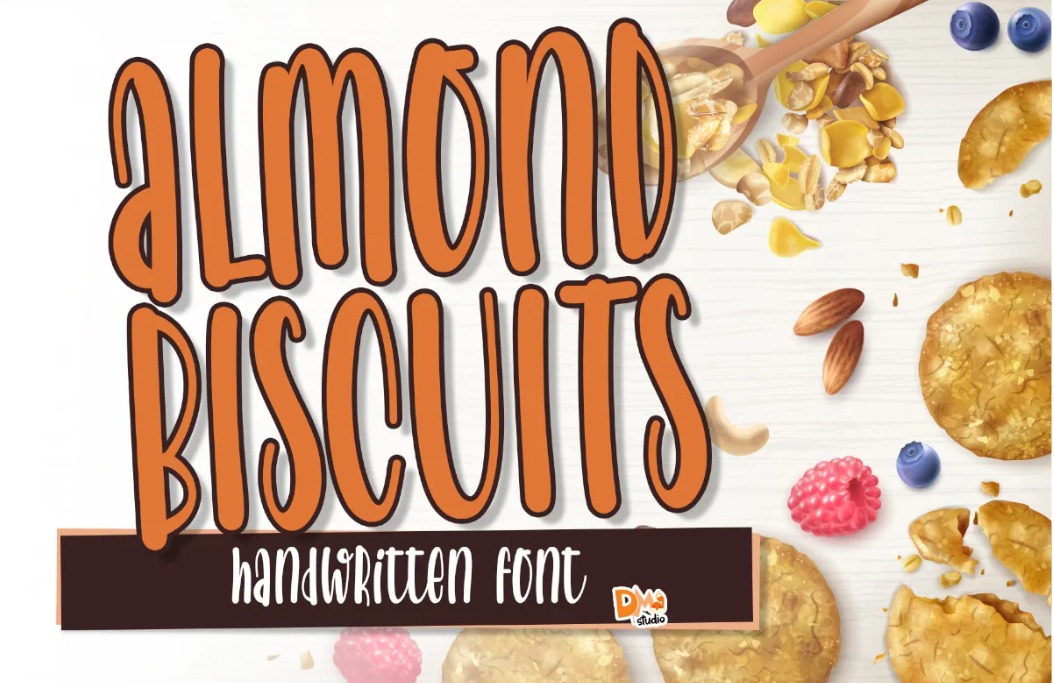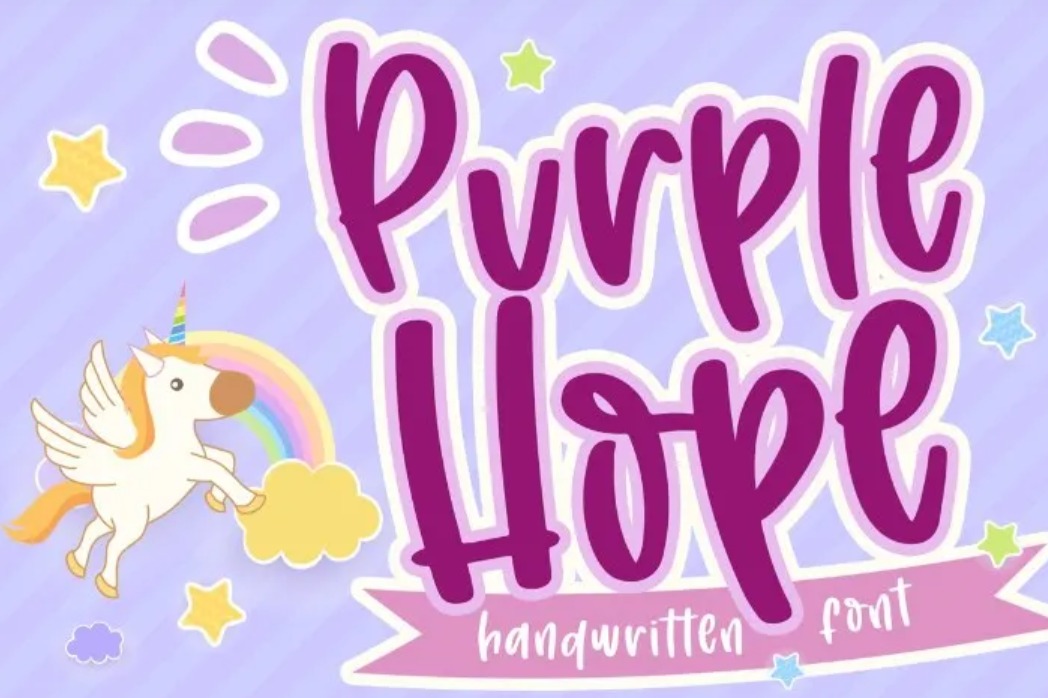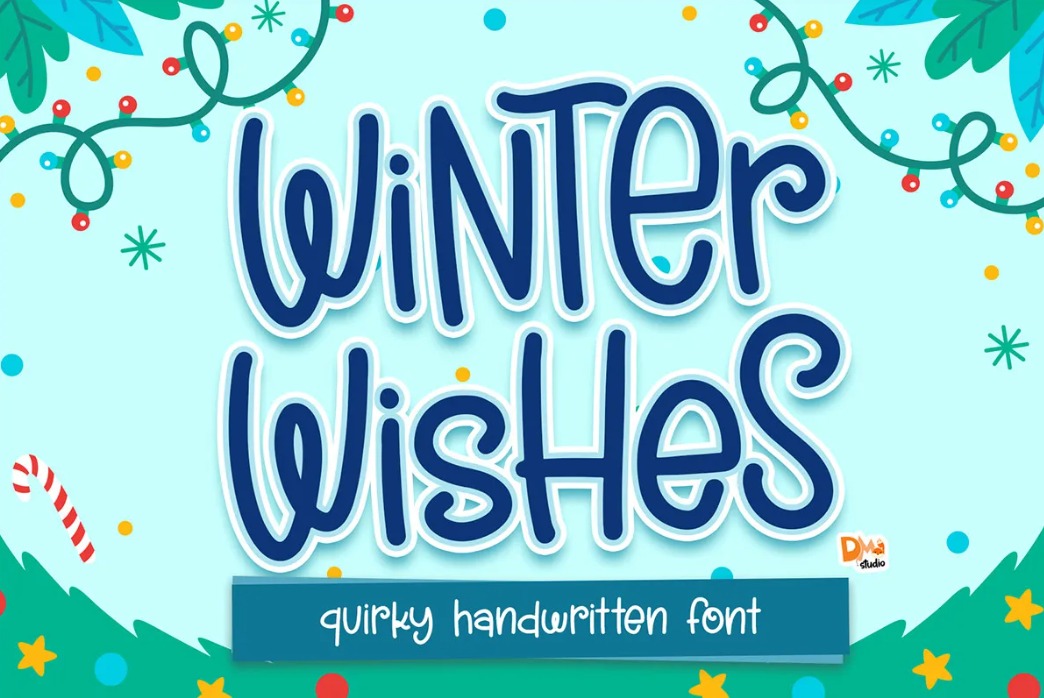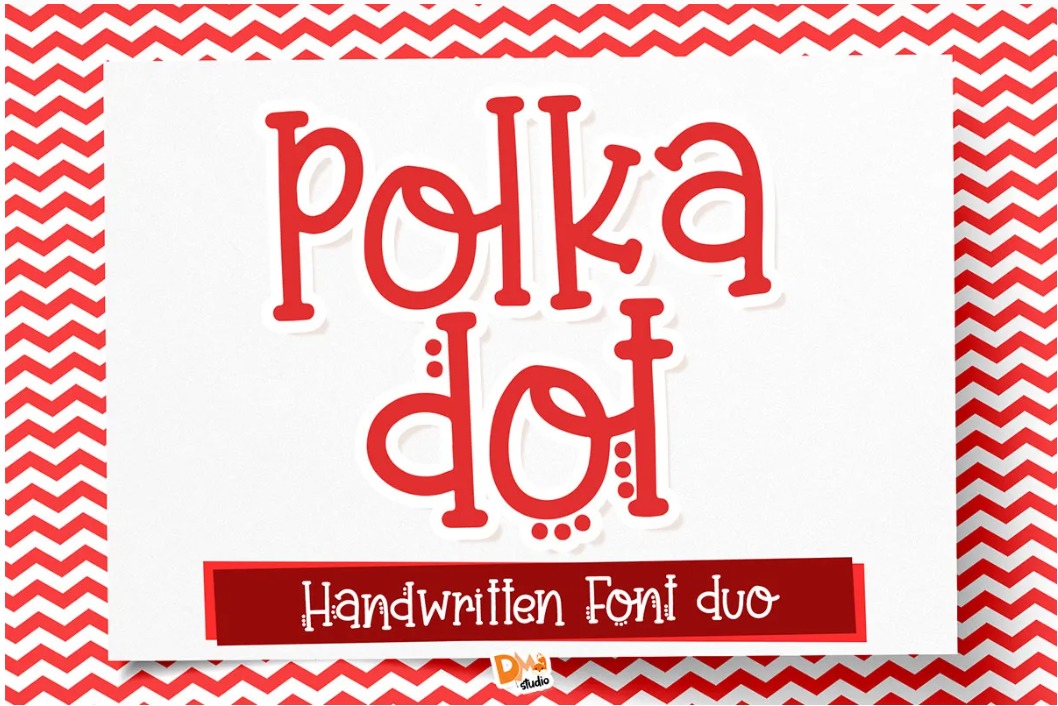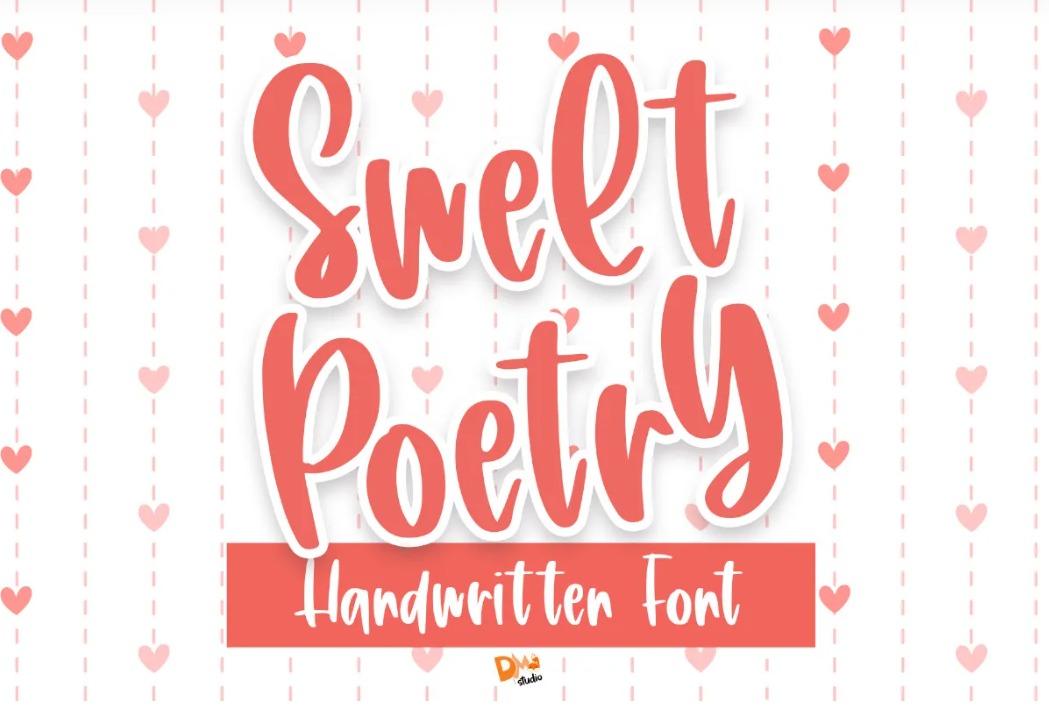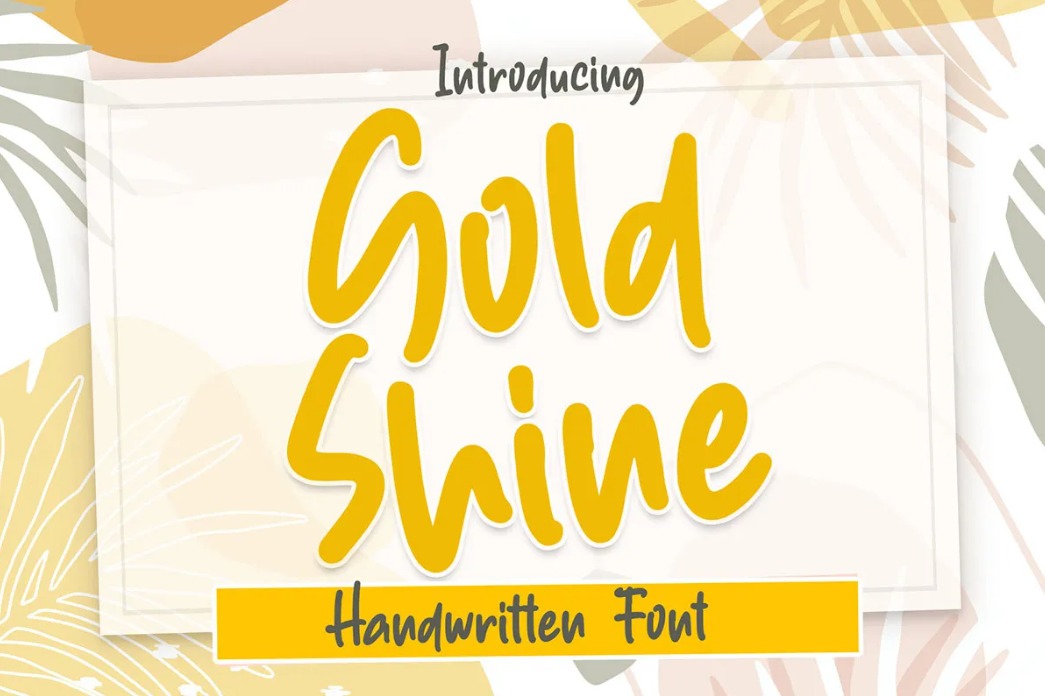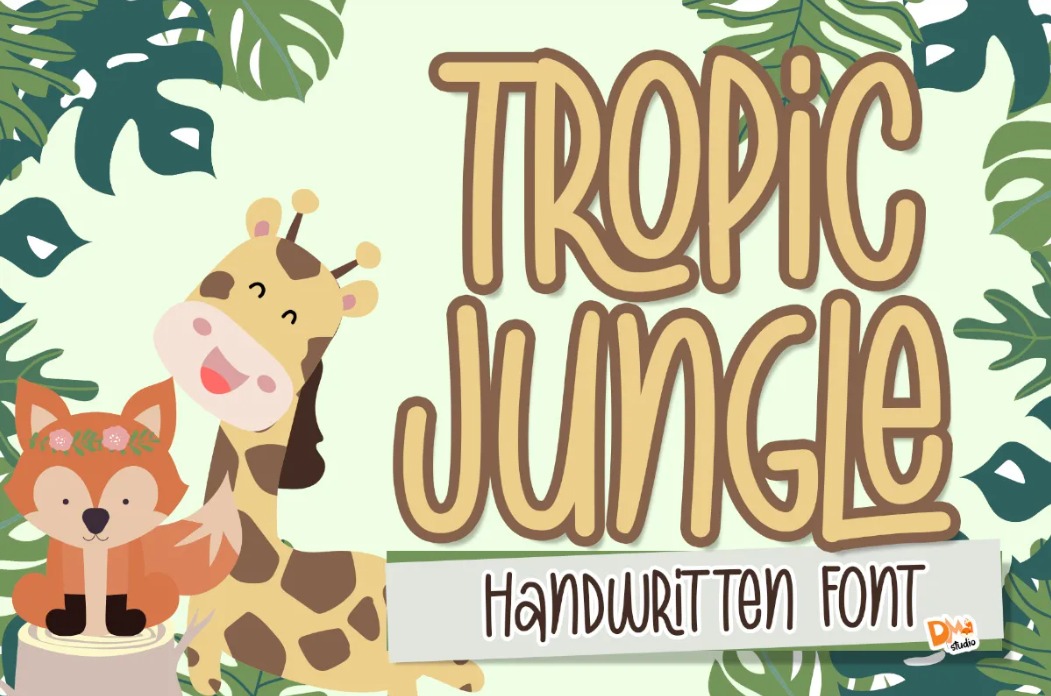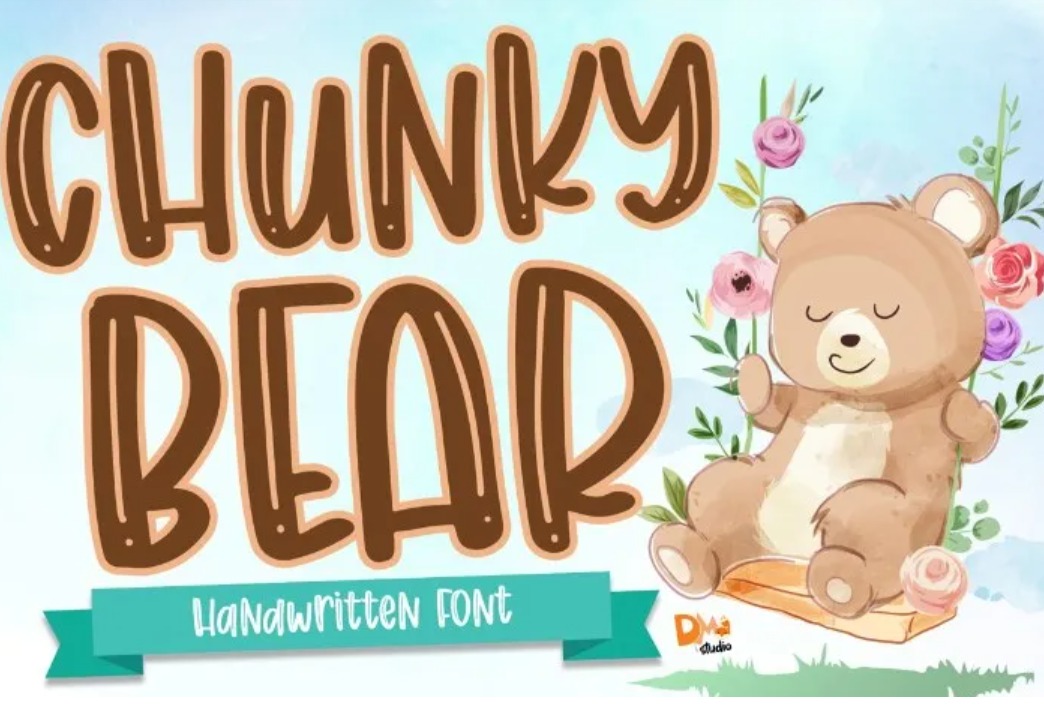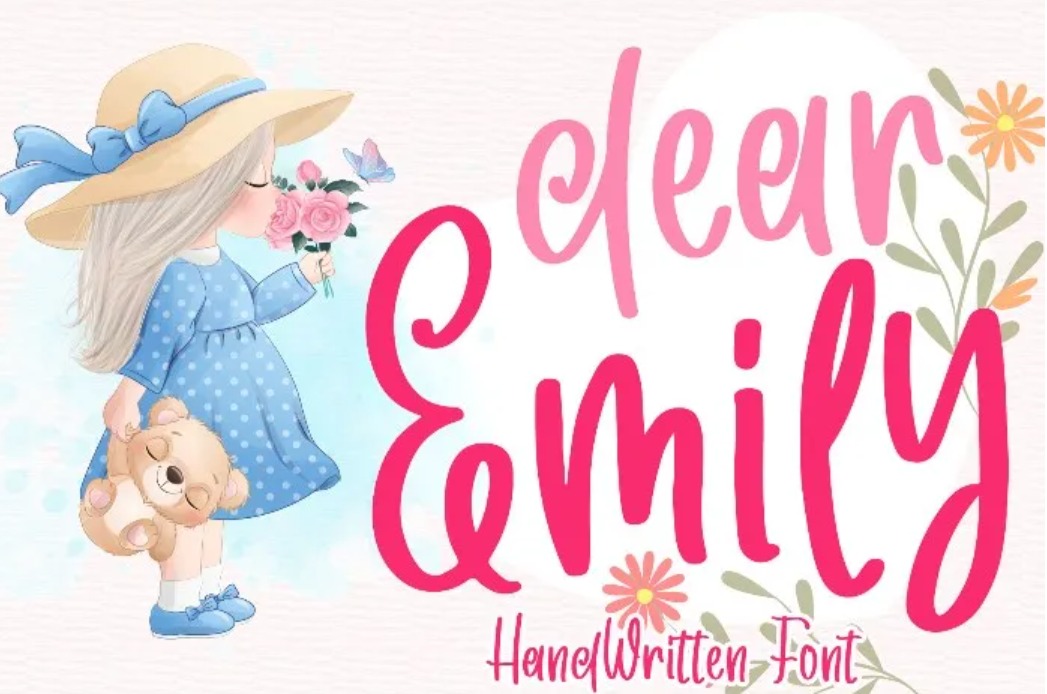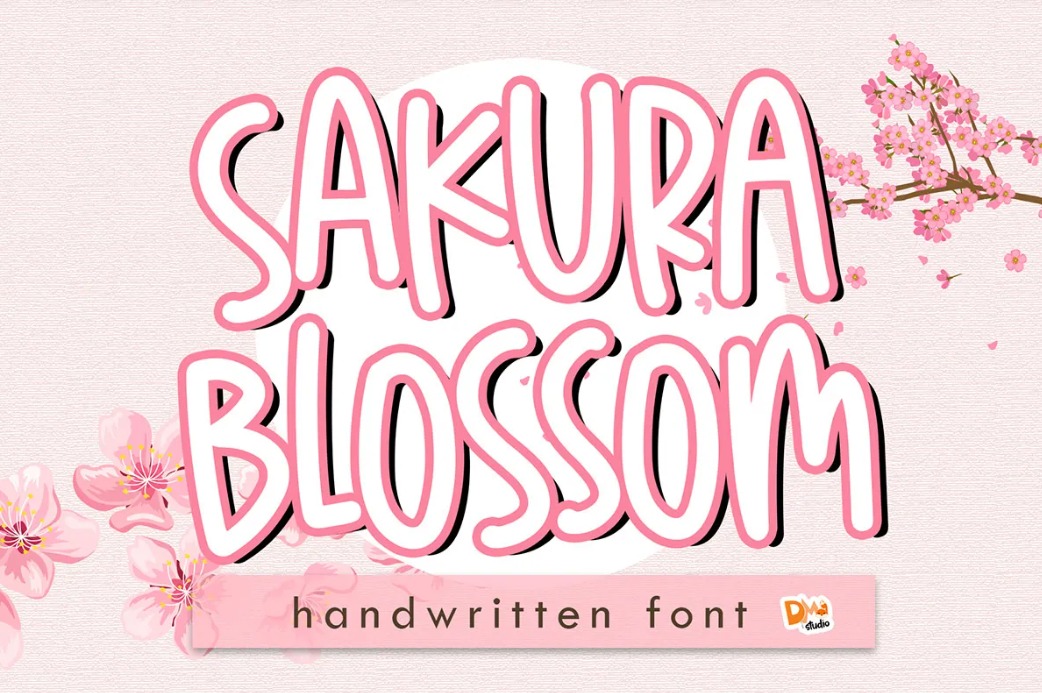
31 Cute Handwriting Fonts for Playful and Bewitching Designs
The secret sauce to grab the attention of the audience is to create a crafty design. Since fonts are one of the crucial elements of design, ensure you choose a type of font that is relevant to your design audience. You can use cute handwriting fonts for playful and casual design themes.
31 Best Cute Handwriting Fonts for Adorable Design Projects
Gear up to create stunning and adorable designs using the following 31 fonts!
Cute Fairy
Cute Fairy Handwritten font
Cute Fairy Font brings a fairy tale atmosphere to your designs with four different styles with embedded ornaments.
Winter Feast Font
Winter Feast Cute Handwriting font
Jazz up your poster for a children’s winter party by choosing the Winter Feast font. This kid’s handwritten font is concise yet mischievous.
Autumn Lover Font
Autumn Lover Cute Handwritten Font for Kids
The Autumn Lover font is worth trying to give a sprinkling of nostalgic vibes with its elegant but lovable design.
Pink Shine Font
Pink Shine Fun Handwritten Font
Looking for bold fonts with excellent readability but delightful? Let’s give a shot of the Pink Shine font.
Autumn Crush Font
Autumn Crush Cute Handwriting Font for Kids
Trying to bring back the autumn mood in your design projects? Autumn Crush is the best alternative.
Short Cake Font
Short Cake Child Handwriting Font
Short Cake Child handwriting font that won’t fail to give a touch of playfulness and sweetness to menu poster designs.
Sunday Party Font
Sunday Party Handwritten Font for Children
Wondering how to perk up poster designs for joyful parties? Give Sunday Party font a whirl.
Bright Spring Font
Bright Spring Fun and Cute Handwriting Font
Alternate letters with love ornaments in the Bright Spring font will make your design more appealing.
Gomu Bear Font
Gomu Bear Kids Cute Handwriting Font
A versatile cute handwriting font inspiration to ginger up your work is Gomu Bear Font. It’s perfect for t-shirts, posters, and book cover designs.
Almond Biscuit Font
Almond Biscuits for Cute Kids Font
The elongated and simple letter design in Almond Biscuit font is best for bottle or t-shirt designs. Simple curly swashes make it look sweet and dainty.
Purple Hope – Handwriting Font
Purple Hope Playful Handwritten Font for Kids
Purple Home font is a smart choice to evoke an energetic and cheerful design.
Jolly Dream Font
Jolly Dream Cute Handwriting Font
The Jolly Dream Cute Handwriting font will help you to bring a lively ambiance to your design.
Lovely Font
Lovely Fun Handwritten for Kids Font
Lovely Fun Handwritten for Kids Font | Image Source: dmletterstudio.com
You can create a poster, book cover, or t-shirt design that is alluring but effortless if you use the Lovely Cute Handwriting Font crafted by DM Letter Studio.
Winter Wishes Font
Winter Wishes Quirky Handwritten Font
Winter Wishes Quirky Handwritten Font | Image Source: dmletterstudio.com
Since winter is associated with snow, give the Winter Wishes Typeface a shot to make your design head-turning with its merry frosty look.
First Love Font
First Love Fun Handwriting Font
First Love Fun Handwriting Font | Image Source: dmletterstudio.com
Thinking of a bold font with a romantic touch? First Love Cute Handwritten Font is your go-to collection.
Chantily Font
Chantily Cute and Luxury Font for Kids
Chantily font is best for girls’ design targets since it has simple but adorable letters designed with curly simple strokes.
Oh Meggie
Oh Meggie Child Handwritten Font
Oh Meggie typeface is another fun handwriting font with a whimsy yet graceful letterform, bringing a classy vibe in a humble approach.